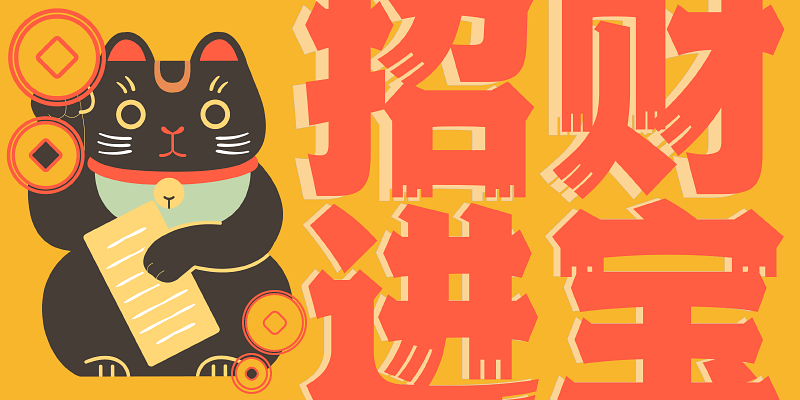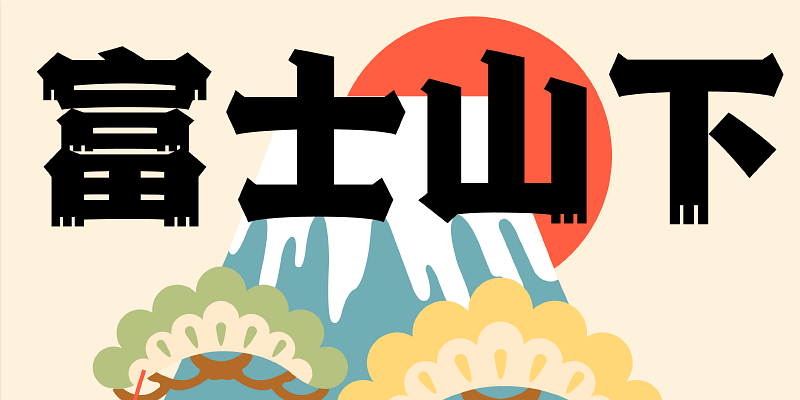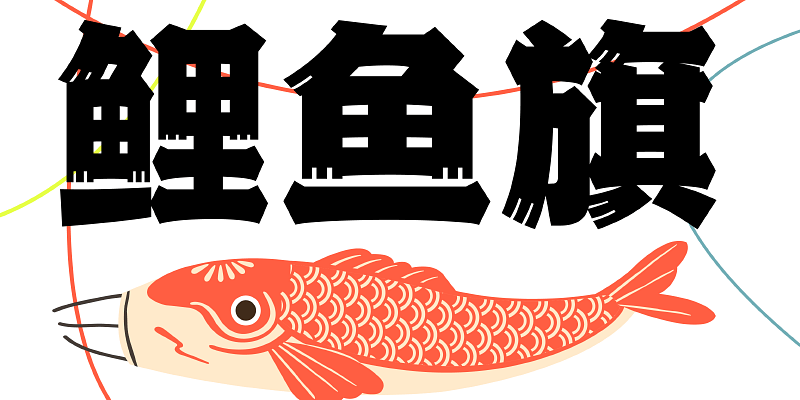
HelloFont ID JianghuZhaopaihei is inspired by the characters of the Edo period in Japan. The strokes are decorated with Japanese writing features,bold and exaggerated,heavy and strong. The whole character is square, and the structure of this font is reasonable in the case of very thick strokes to ensure the permeability of the font itself. Meanwhile, strokes are elegant and fluent, simple but smart, can be widely used in packaging, e-commerce, and so on.